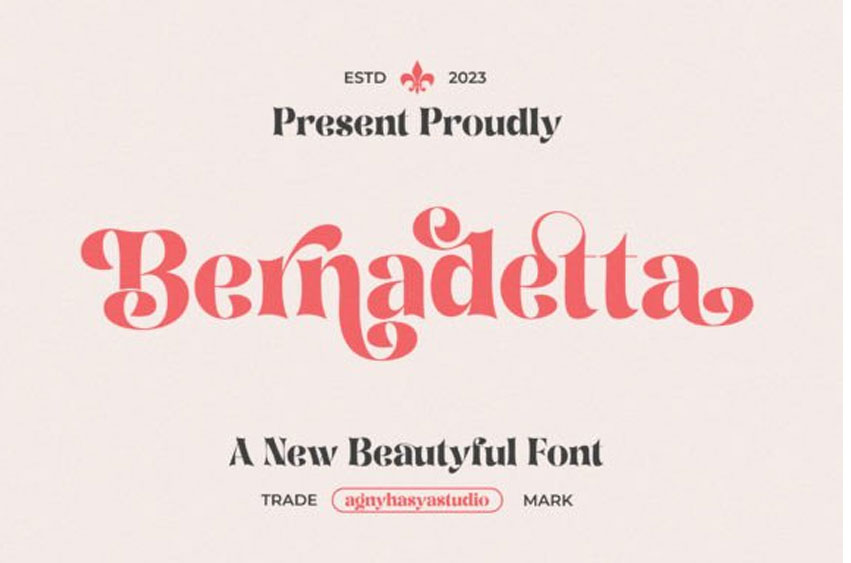
Bernadetta Serif Font
Bernadetta Serif Font is a Modern Classic & Beautiful Display Serif Font created with 2 (two) styles (regular & italic), and glyph variations like alternates and ligatures. Combine it and make your perfect typography design!
Perfect for your design projects like logos, branding, advertising, product designs, stationery, magazine designs, book/cover title designs, photography, art quotes, wedding designs, fashion designs, special events, labels, product packaging, and more.